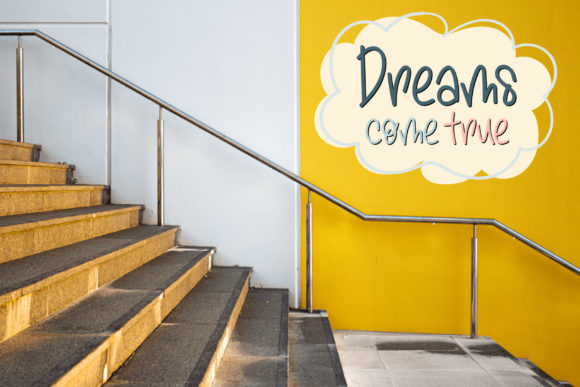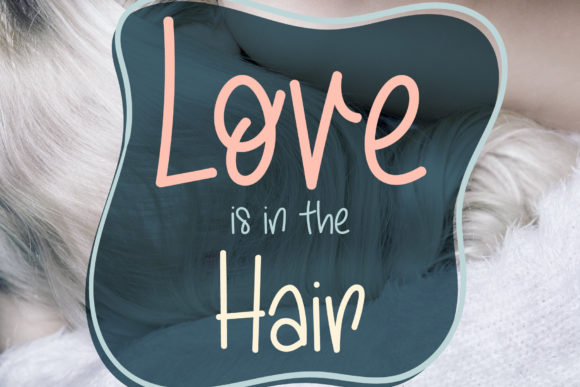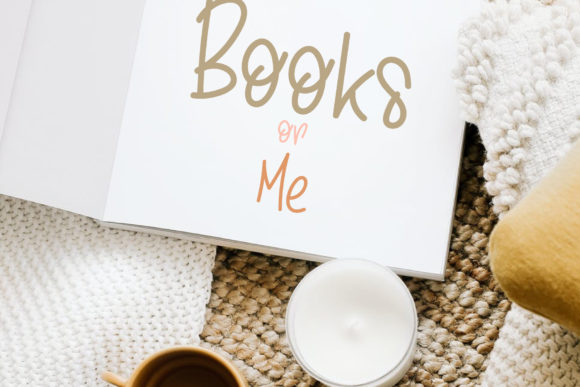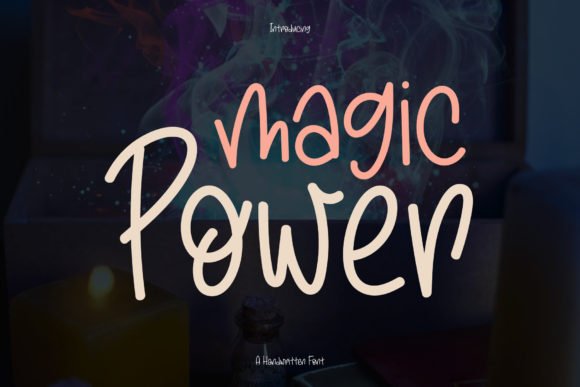
Introduction to Magic Power Font
Magic Power is a simple, quirky and adaptable handwritten font.
Its informal style and casual vibe will make this font a go-to choice for each of the creations that require a relaxed touch .